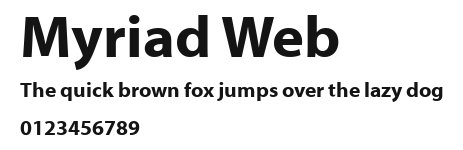
• Font Name: Myriad Web
• Font Style: Gras
• Full Font Name: Myriad Web Gras
• Designer: Robert Slimbach and Carol Twombly
• Manufacturer: Adobe Systems Incorporated
• Description: Myriad is an Adobe Originals typeface designed by Robert Slimbach and Carol Twombly in 1992. Myriad is a sans serif design that works well as a text face as well as providing flexibility for filling display needs. Myriad Web has been optimized for onscreen use.
About Myriad Web.ttf
Myriad Web.ttf is a modern, elegant sans-serif font designed for ultimate readability and visual harmony. Perfect for branding, headlines, web design, and print materials.